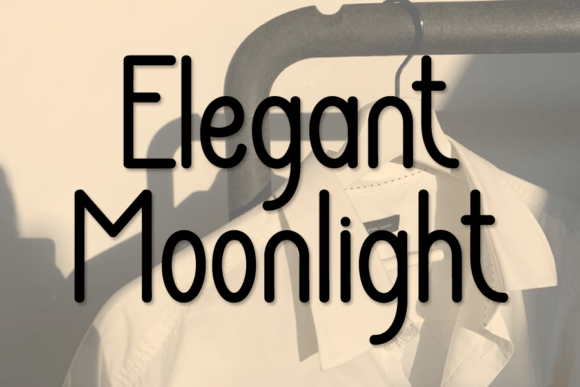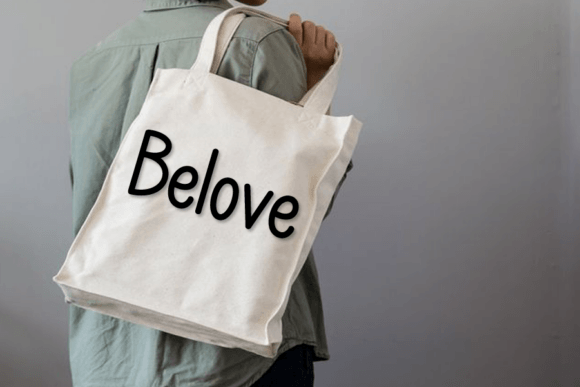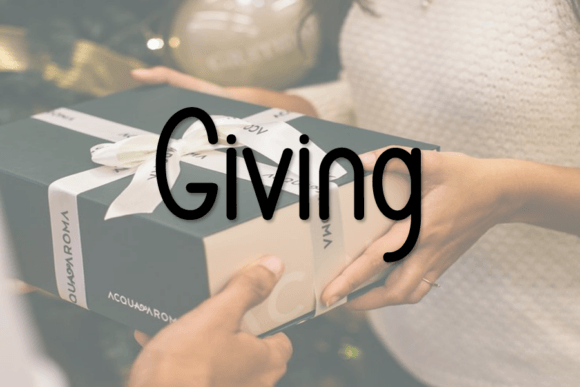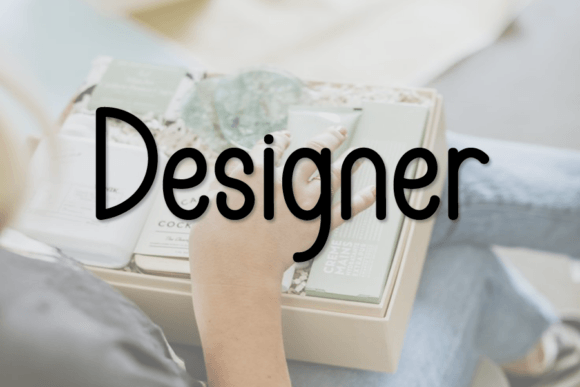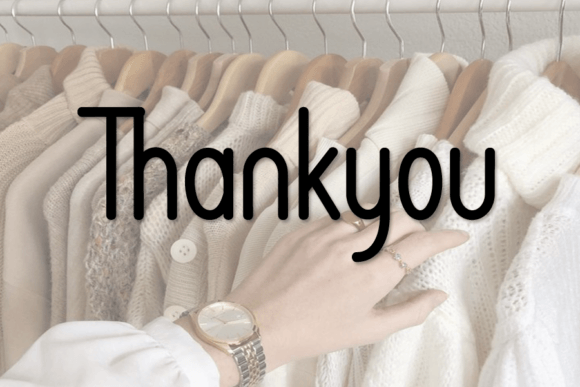
Introduction to Monday Desember Font
Monday Desember is a classic and simple handwritten script, created in a random and free style.
Monday Desember is a classic and simple handwritten script, created in a random and free style. It is suitable for logotype, headline font, in corporate identity, brand identity, apparel industry, pos
Key Features of Monday Desember Font